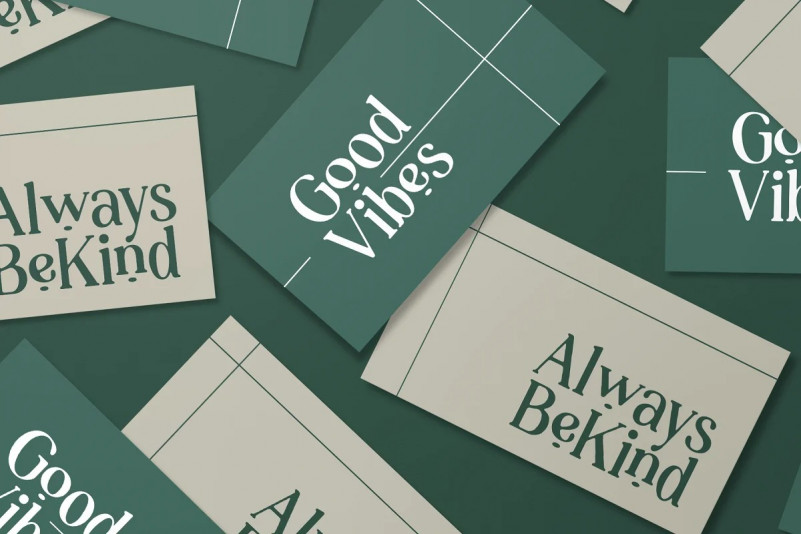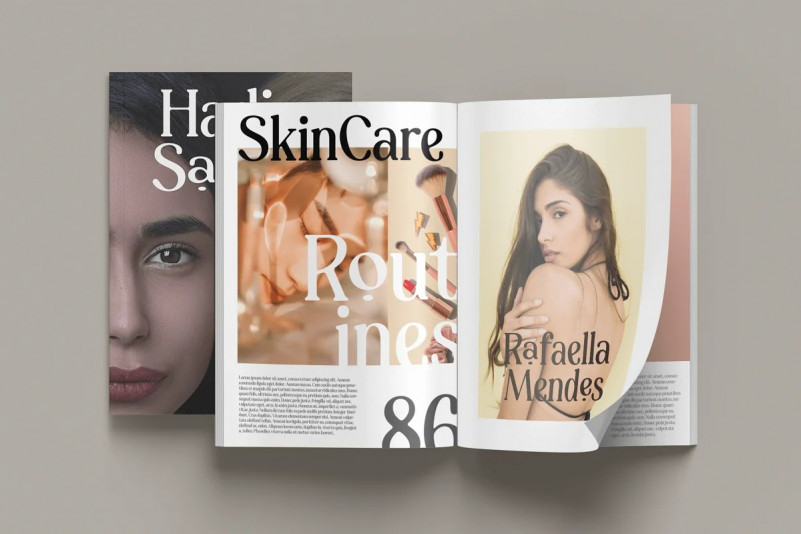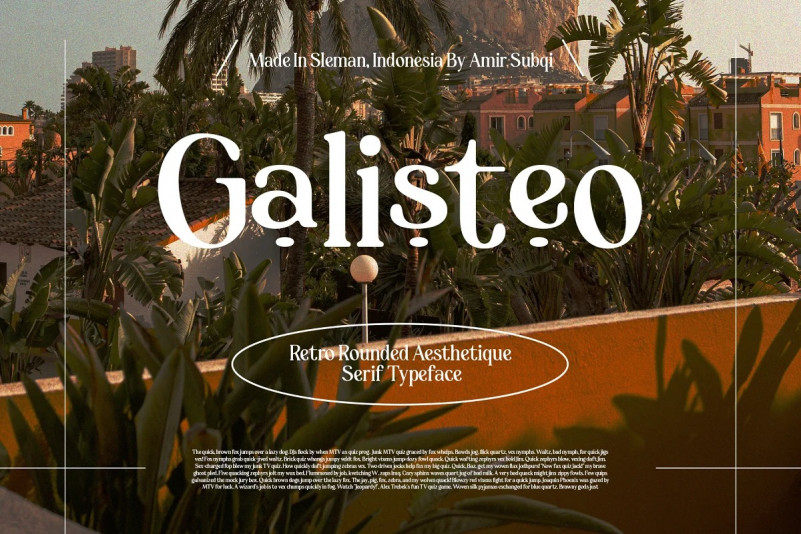
Galisteo Font
Hello Everyone, introduce our new product Galisteo Serif  Font, a subtle retro-aesthetique typeface that will be suitable for display design projects.
This font is the perfect way to add style and flair to your designs! The unique, sophisticated shapes and amazing mix of shapes in this font will automatically add a touch of class and sophistication. ideal for use in greeting cards, posters, product packaging, or just to add a little flair to your designs. Its simplicity will make it easy to read and you can use it anywhere you like. Grab your copy now and start making the most of it today!